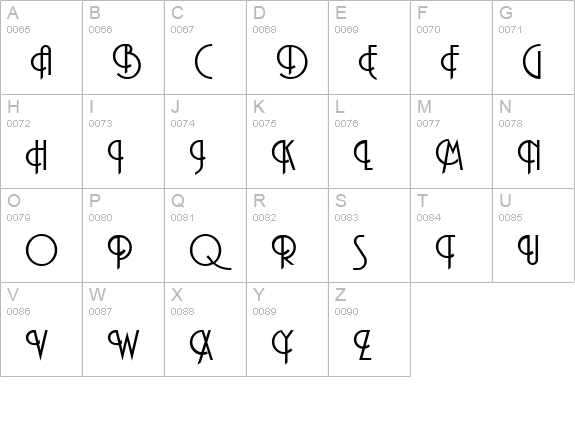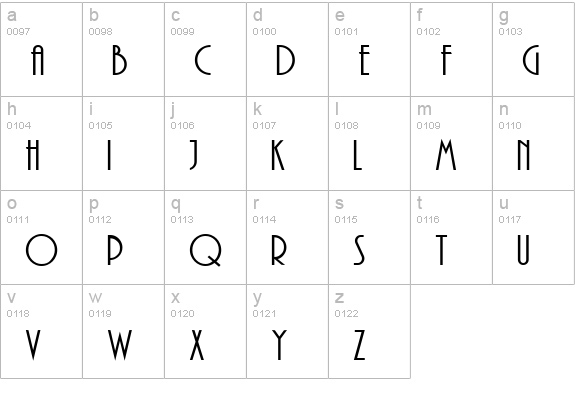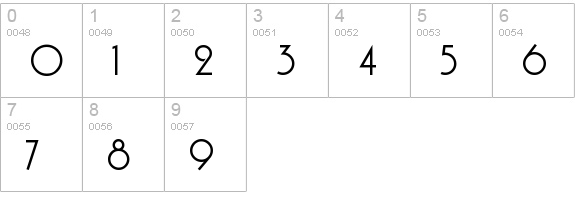
Andes Font Details
Andes font is a modern and elegant typeface that exudes sophistication and style. With its clean lines and sleek design, Andes is perfect for a wide range of design projects, from branding to editorial layouts. Its versatility makes it a great choice for both headlines and body text, ensuring a cohesive and polished look for your designs. The best part? Andes font is completely free to download at FontsMarket.com. Whether you're a seasoned designer looking to add a new font to your collection or a beginner exploring typography for the first time, Andes is a fantastic choice that won't break the bank. Download Andes font today and elevate your designs with its timeless appeal and modern flair.